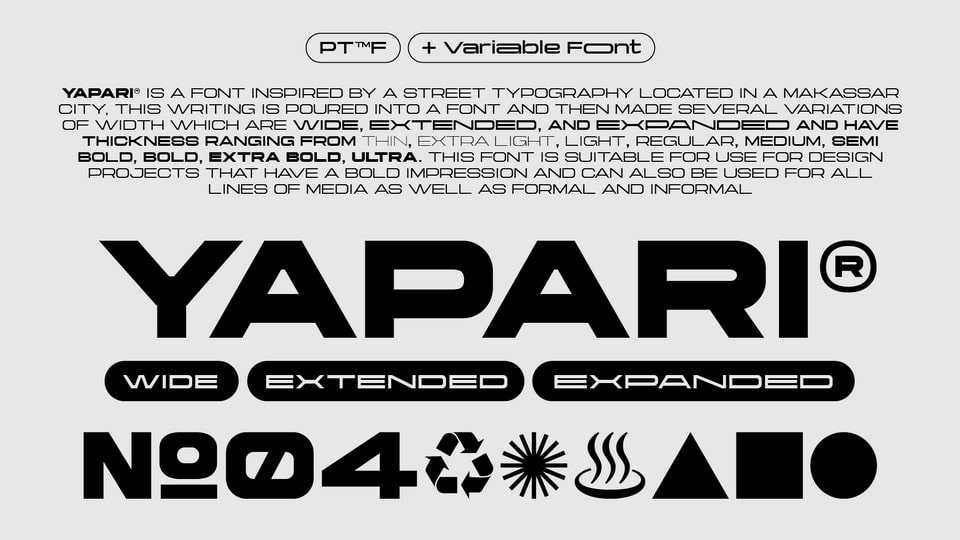
Download Yapari font, a stretch display typeface inspired by a street typography located in a Makassar city. Yapari font is suitable for use for design projects that have a bold impression and can also be used for all lines of media as well as formal and informal.
Designer: Power Type Foundry